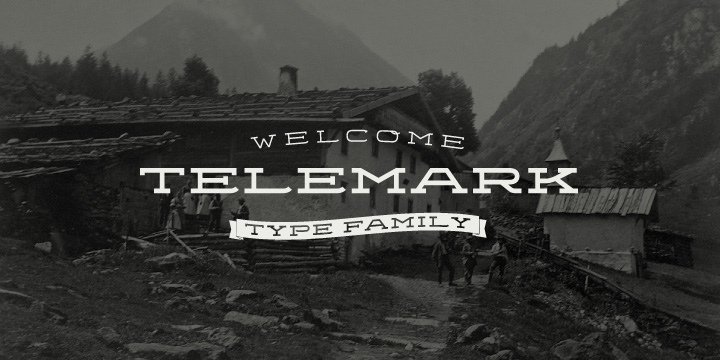
Telemark Font
Telemark Font is perfect for various design applications including Nordic outdoor gear branding, Scandinavian lifestyle products, winter sports equipment packaging, alpine adventure company logos, ski resort signage, mountain lodge materials, Norwegian cultural events, cold-weather apparel labels, Nordic wellness brands, and authentic Scandinavian design projects. This distinctive typeface excels in projects requiring Nordic authenticity and mountain heritage that captures the rugged beauty and timeless traditions of Scandinavian outdoor culture.
What makes Telemark Font so exciting is its authentic embodiment of Nordic heritage and alpine tradition through letterforms that suggest the stark beauty of Scandinavian landscapes and the enduring strength of mountain cultures. The font features angular construction reminiscent of carved wood and stone, sturdy proportions that evoke traditional Nordic craftsmanship, and distinctive character details that reflect the practical elegance of Scandinavian design philosophy. Its distinctive Nordic character and alpine authenticity make it perfect for brands seeking to communicate heritage, durability, and the timeless appeal of Scandinavian outdoor traditions.
Telemark Font family includes multiple weights and Nordic-inspired variations that enhance its versatility for different Scandinavian applications. Each style maintains the font's signature alpine character while providing options for various Nordic design approaches. The family also features traditional Scandinavian decorative elements, mountain motifs, and heritage symbols that can be combined with the letterforms to create cohesive Nordic cultural design systems.
Whether you're developing outdoor brands, Scandinavian lifestyle products, or alpine adventure campaigns, Telemark Font Free Download provides authentic typography that transports audiences to the majestic Nordic landscapes and celebrates the enduring traditions of Scandinavian mountain culture. This typeface transforms ordinary communications into inspiring statements that promise authentic outdoor experiences and connection with Nordic heritage. The font's alpine appeal makes it particularly effective for outdoor gear companies, winter sports brands, and businesses targeting audiences who appreciate Scandinavian design and mountain lifestyle authenticity.
Telemark Font stands out by delivering genuine Nordic authenticity that feels connected to real Scandinavian traditions rather than artificial Nordic styling. Its carefully crafted alpine proportions and traditional details ensure that designs feel authentically connected to Nordic culture and mountain heritage. From outdoor equipment branding to Scandinavian lifestyle communications, this font provides designers with tools to create communications that celebrate Nordic traditions and inspire appreciation for Scandinavian mountain culture through strong, heritage-inspired typography that captures the essence of alpine adventure.